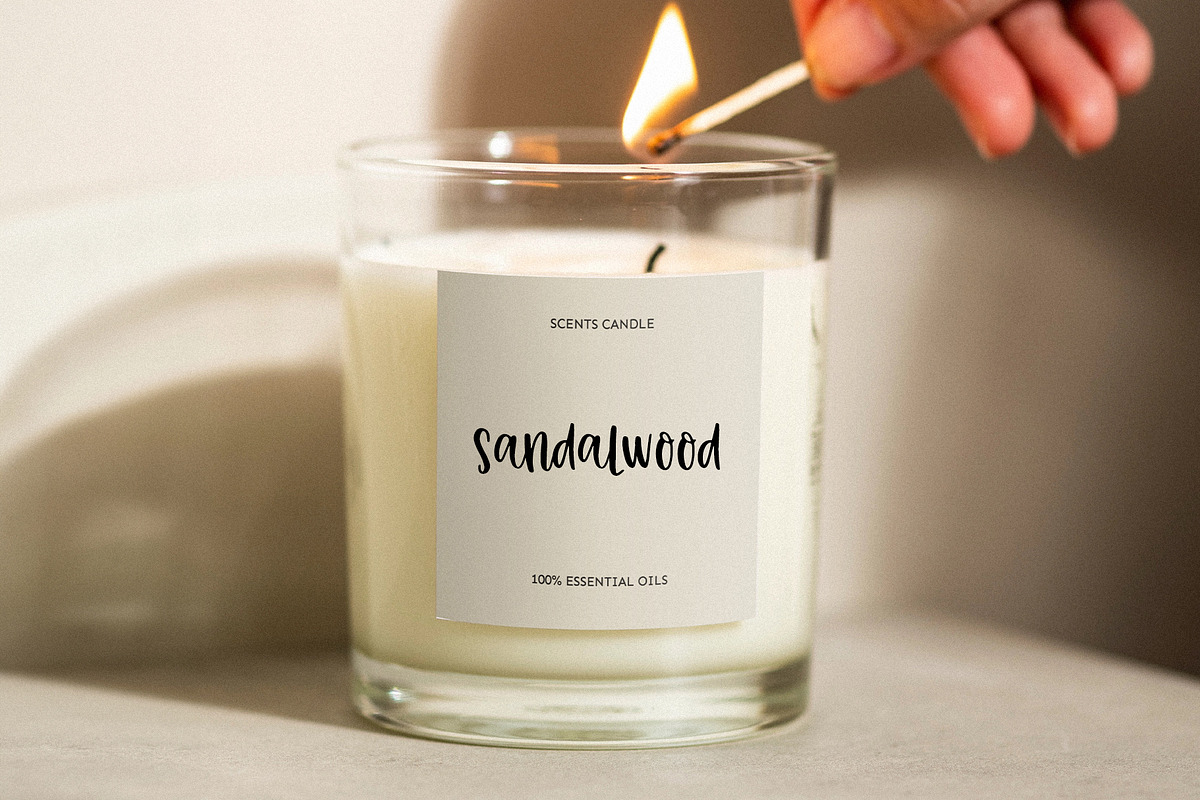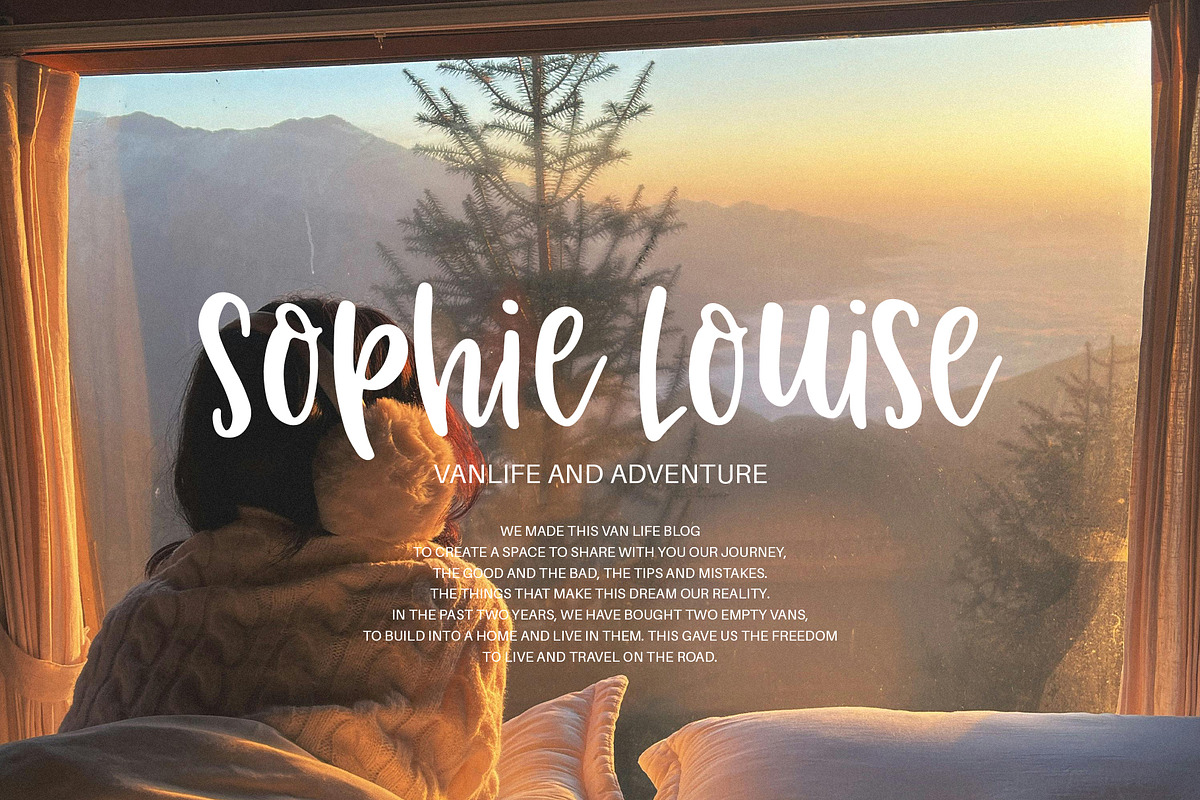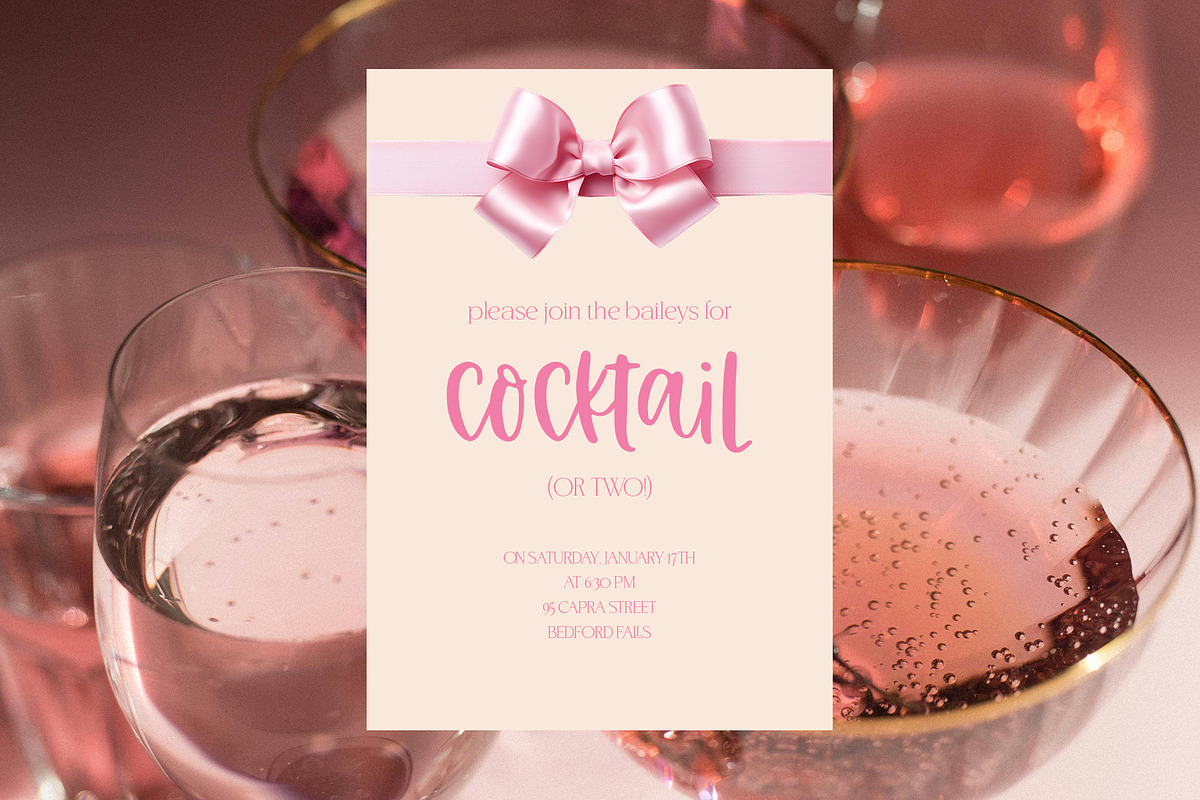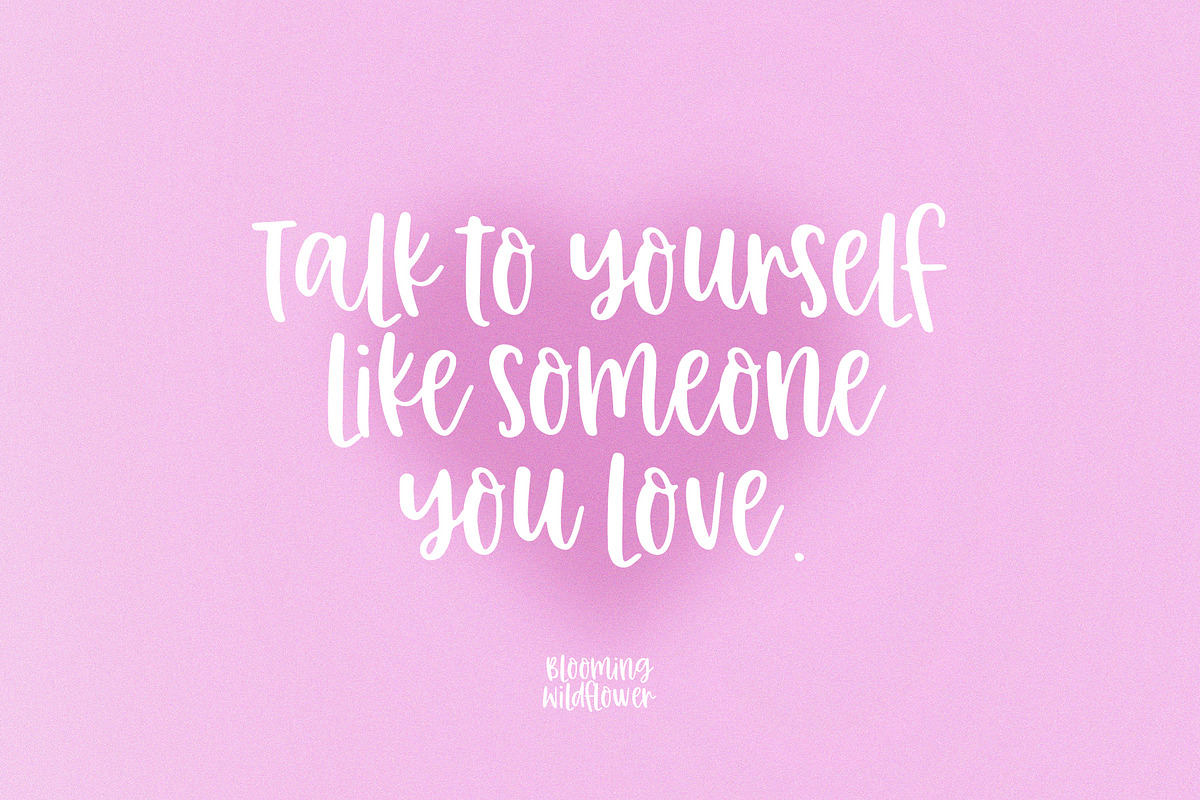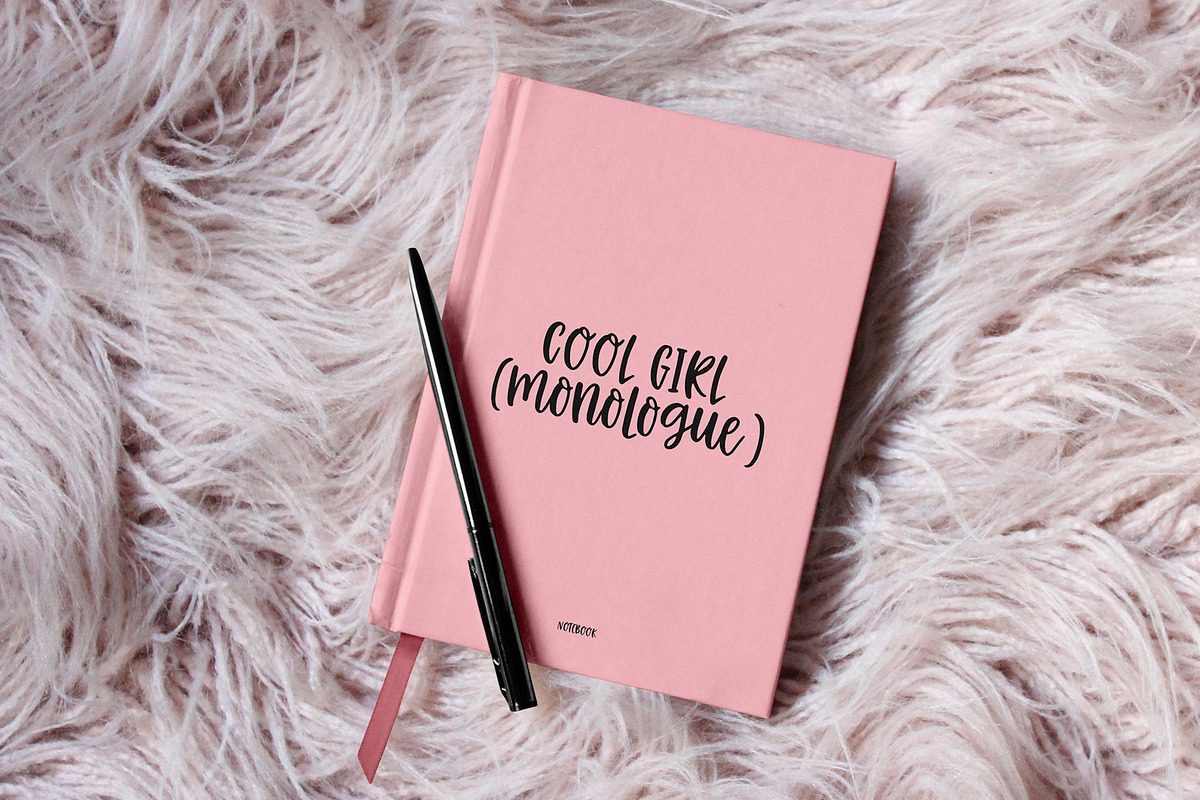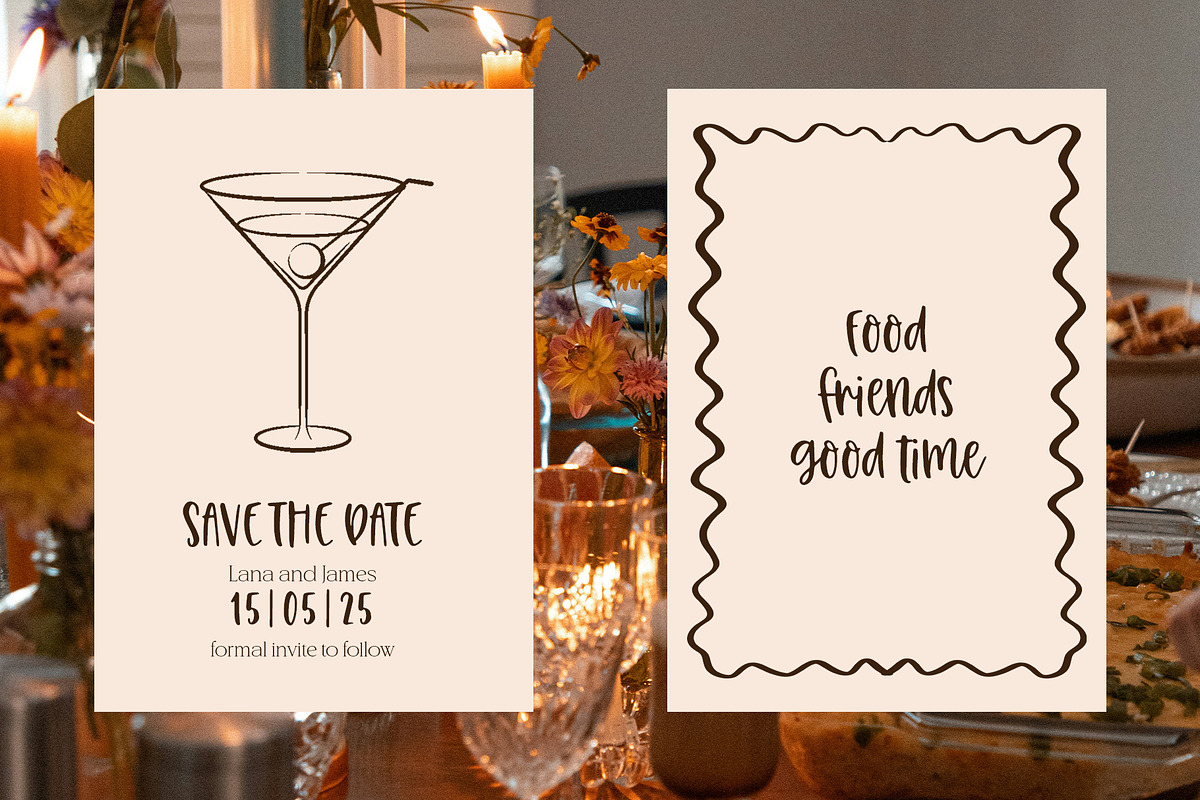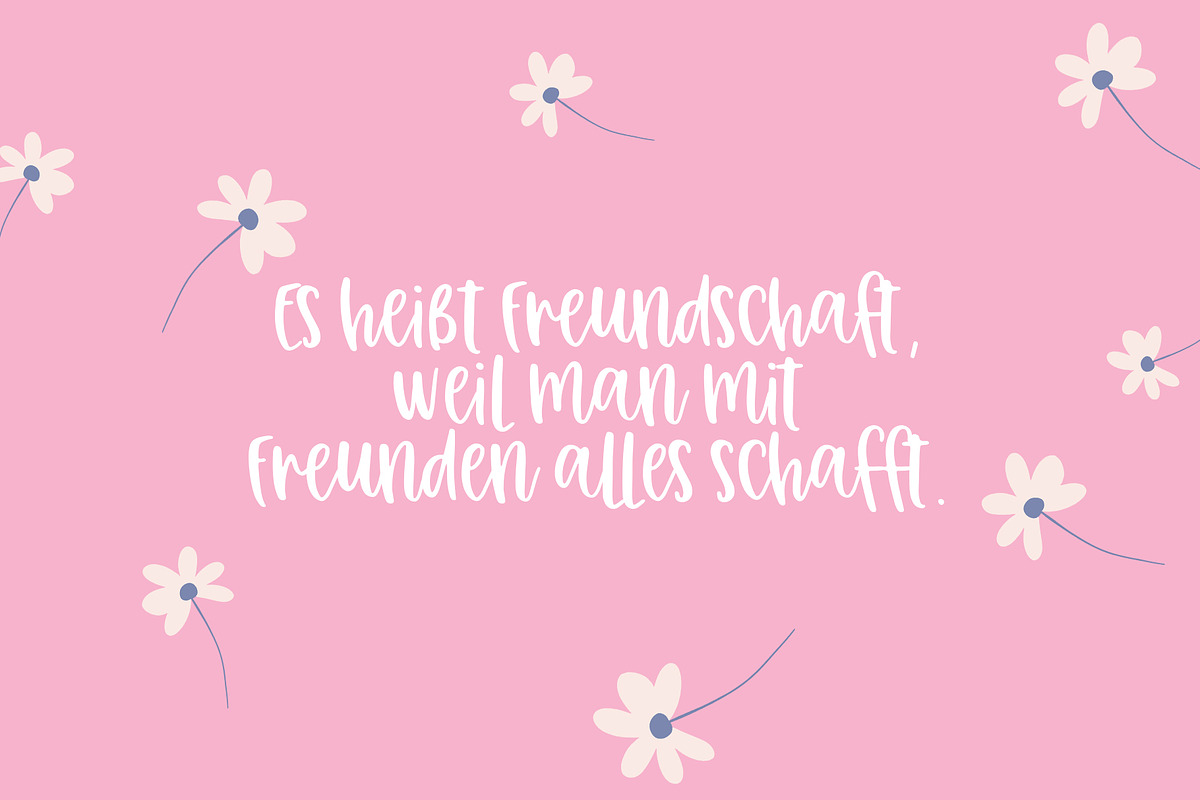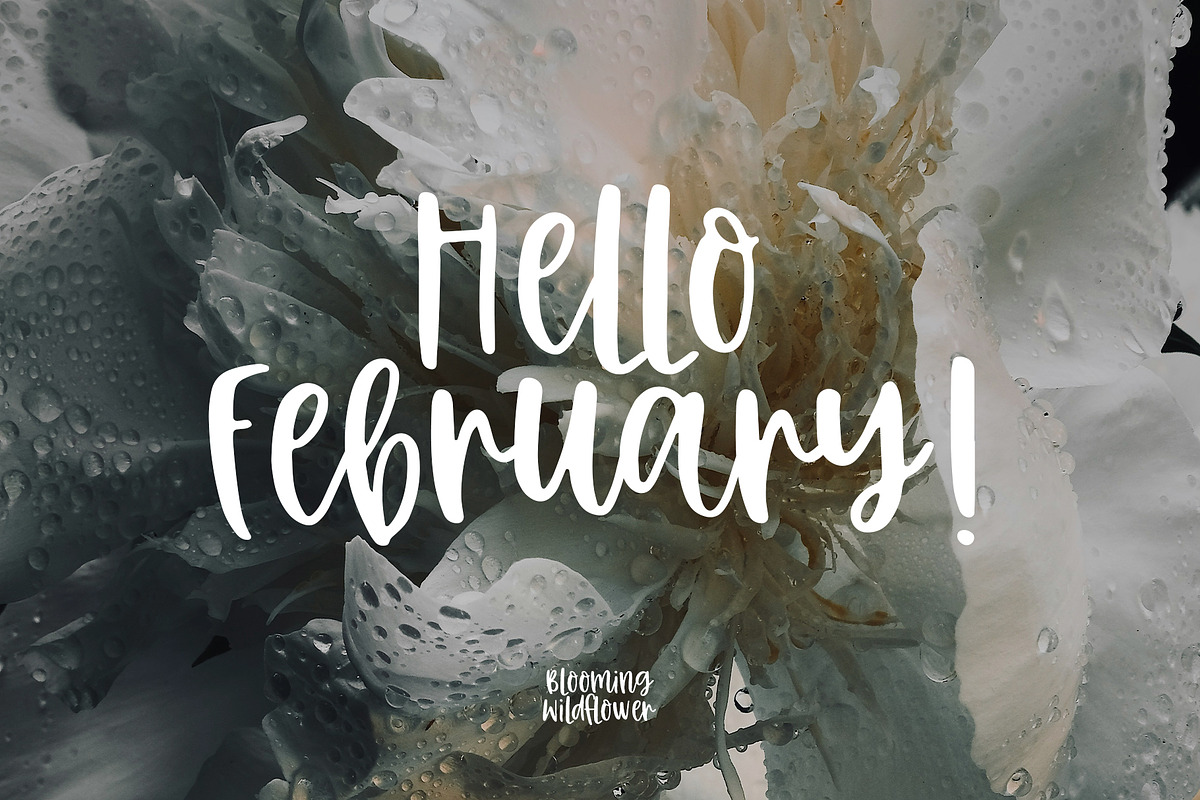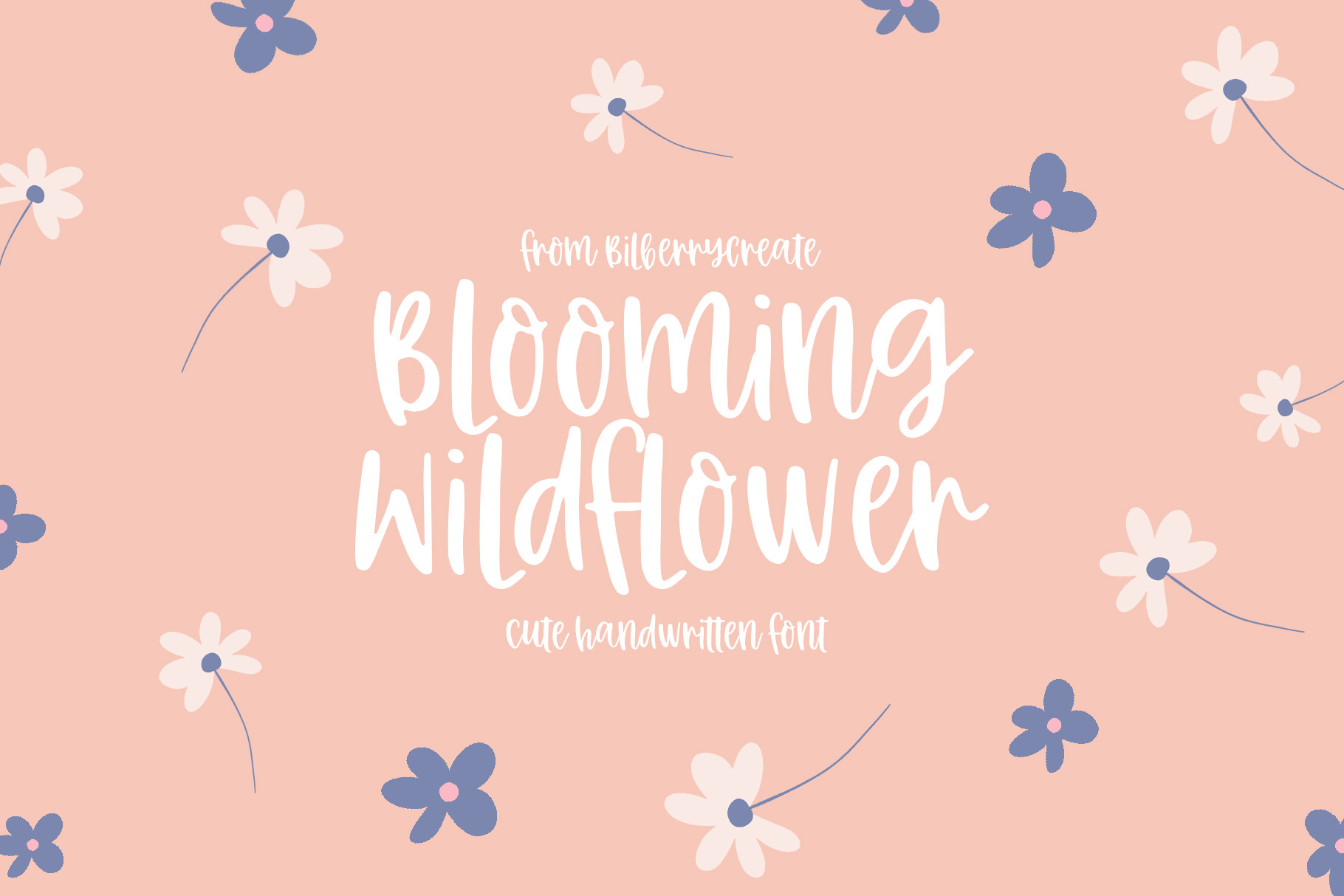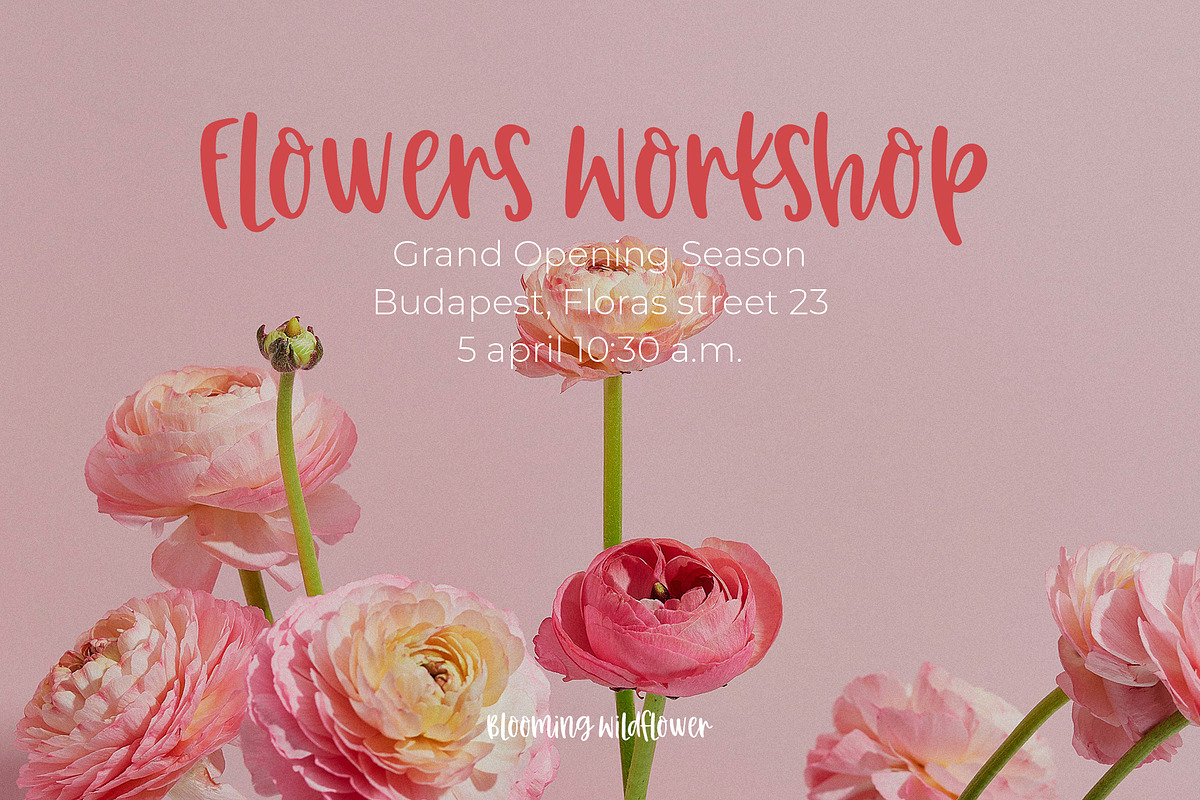
Blooming wildflower cute font
Blooming wildflower a handwritten cute font!
This is a perfect handwritten font for any project. Be sure to click on the image to see all elements. This product was created to help you make your digital images even more beautiful and unique.
This font can be used to create anything as you wish, logos invitation cards, wedding cards, birthday cards, home decor, packaging holiday gifts, party decorations, print on fabrics and so much more.